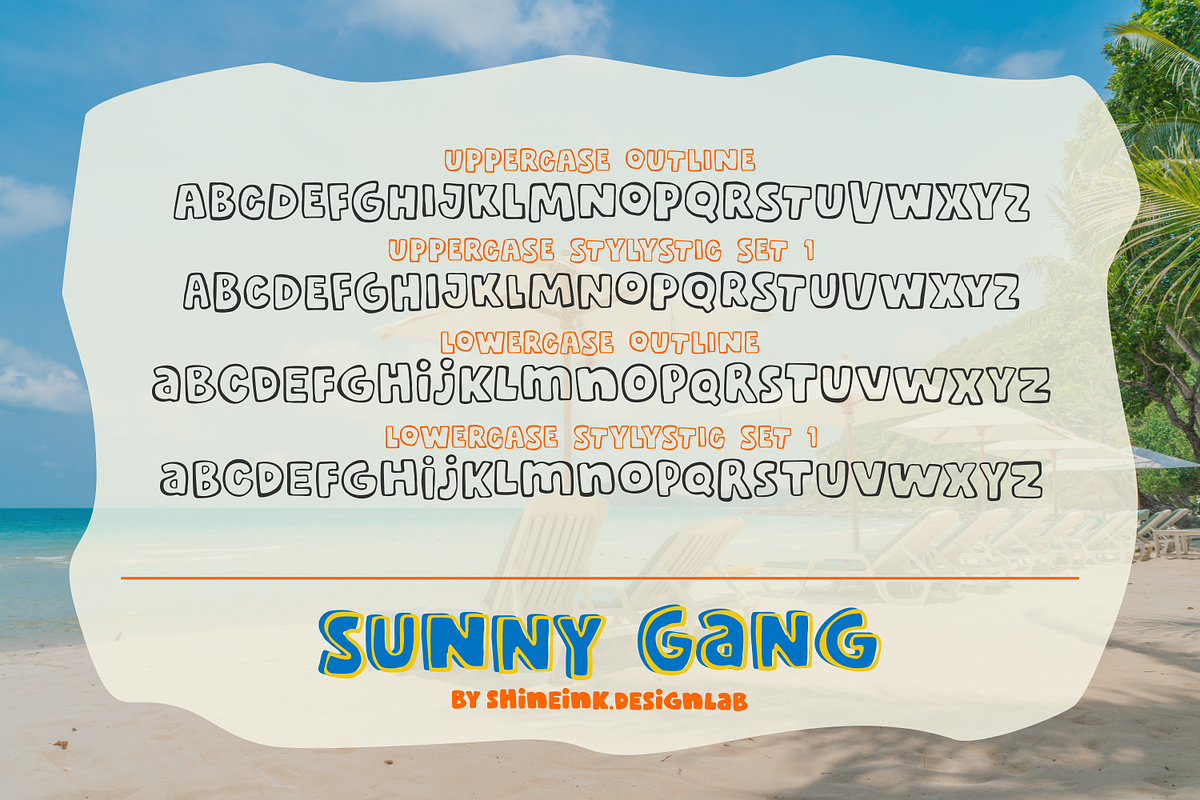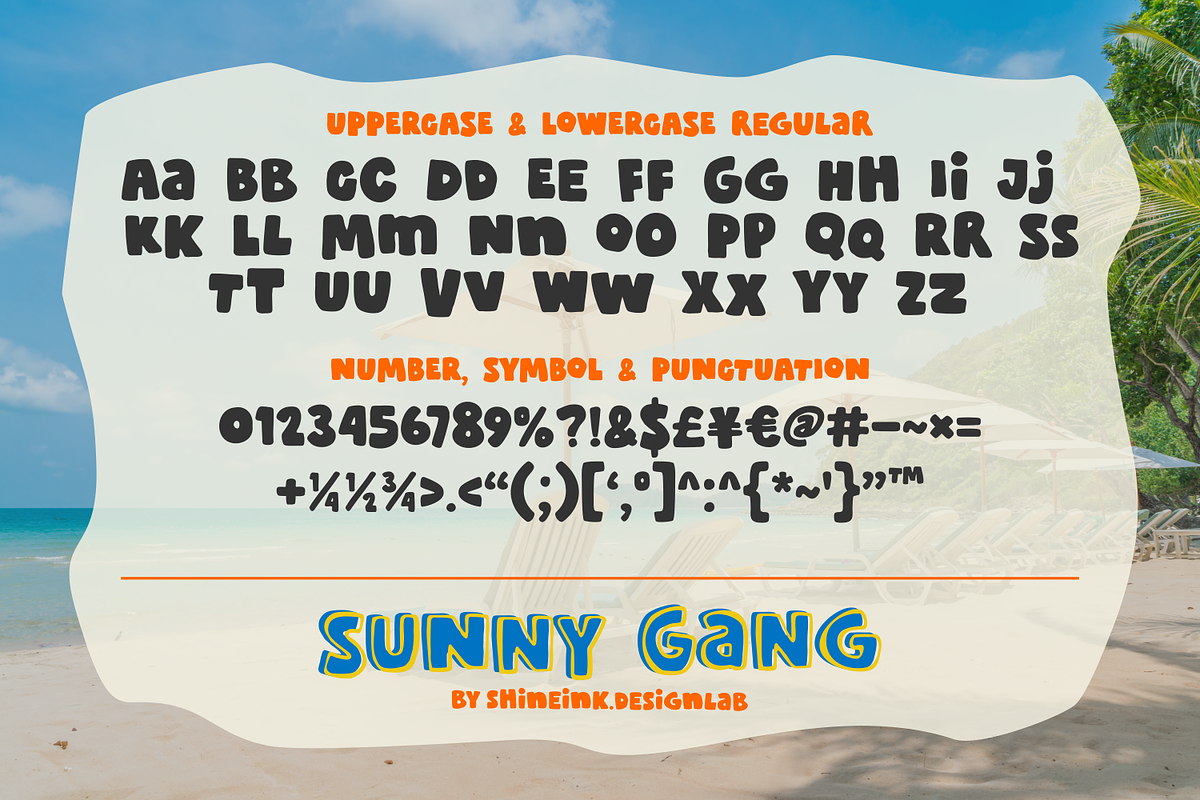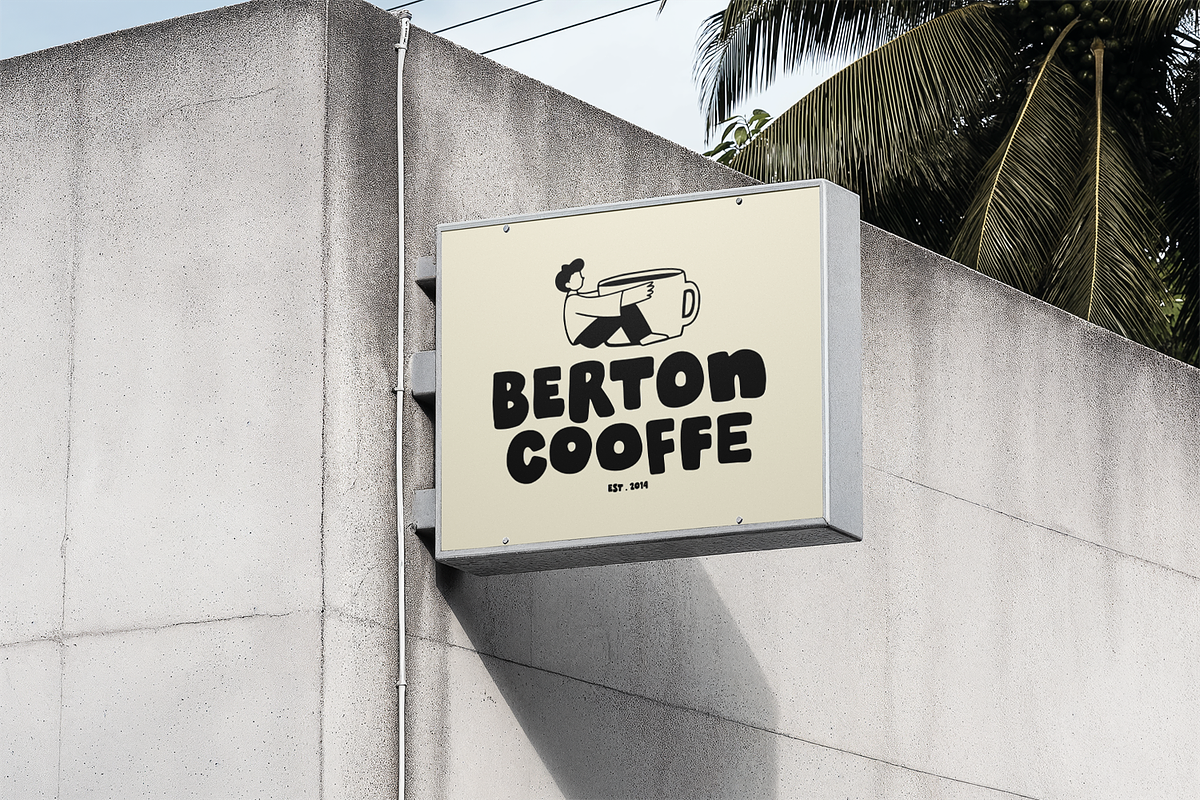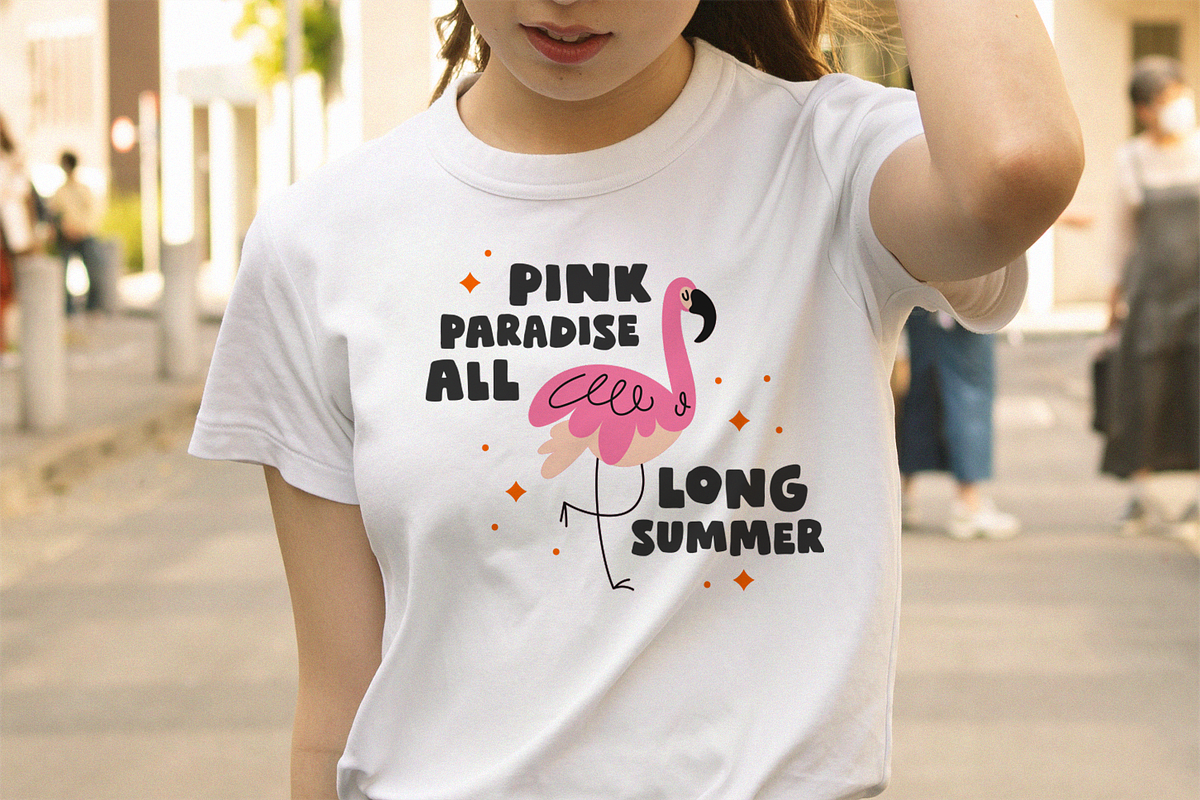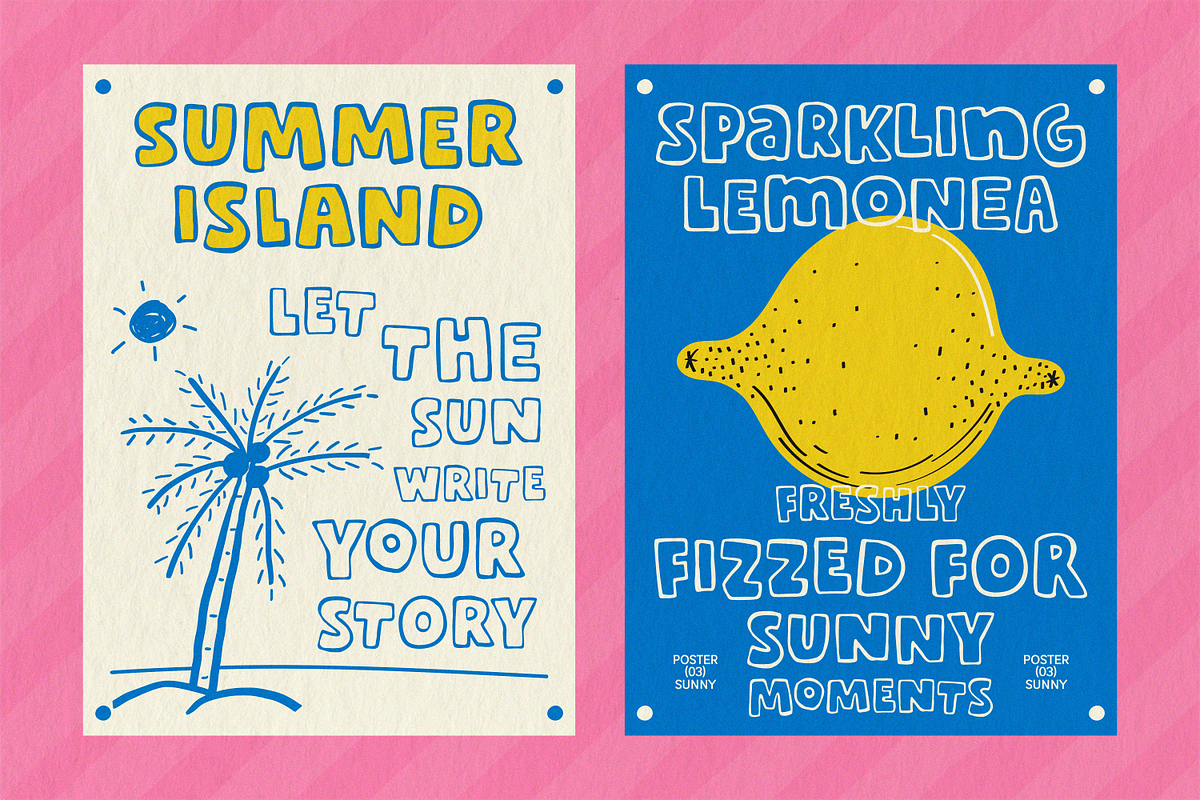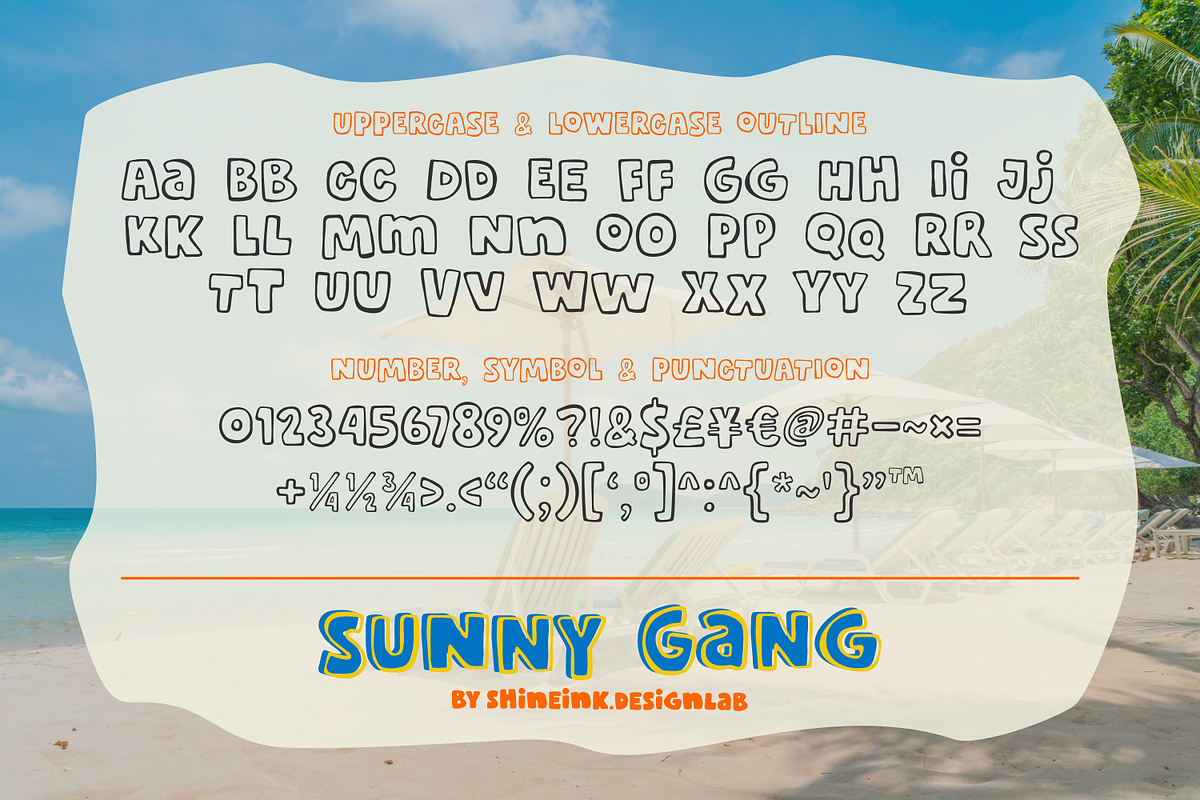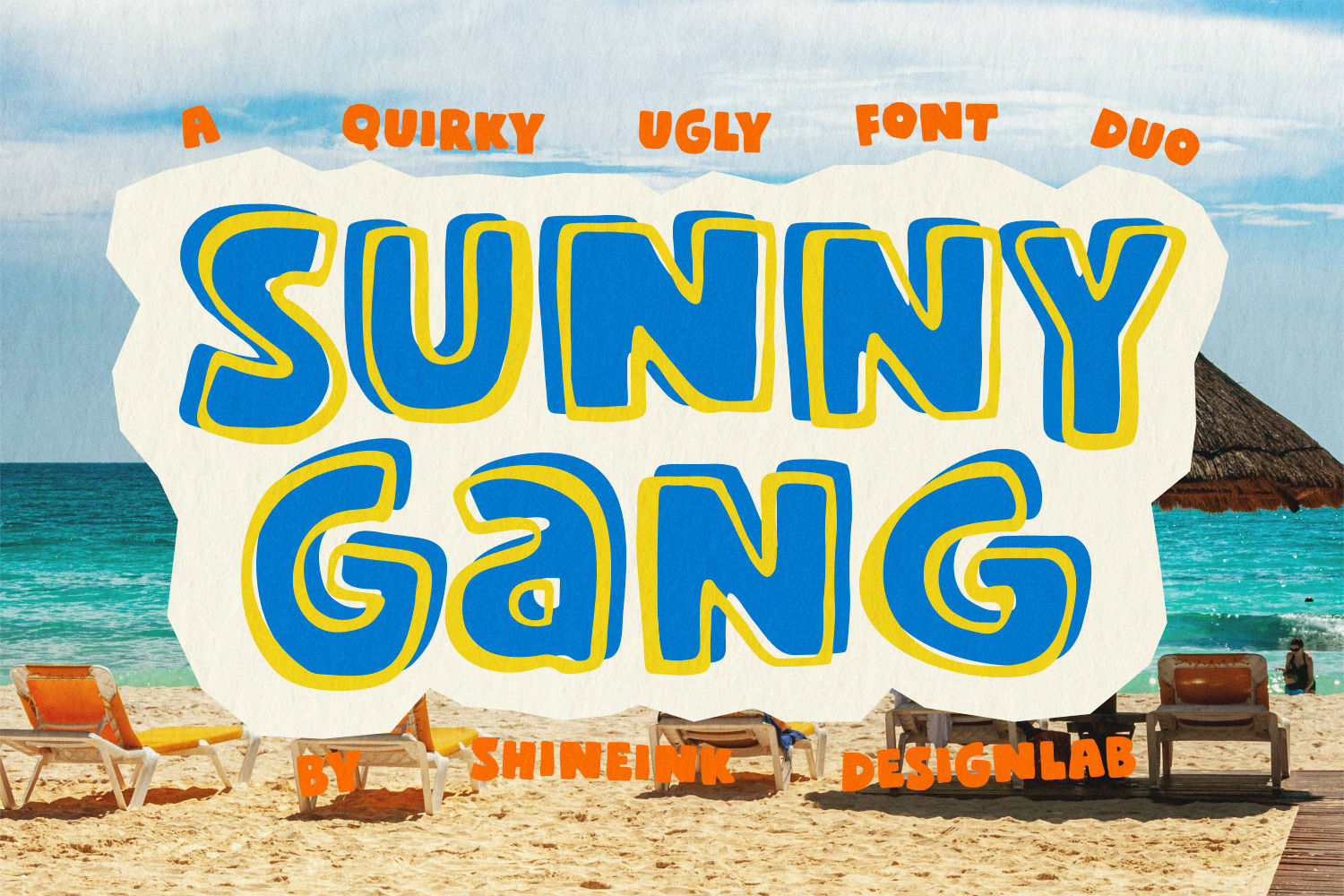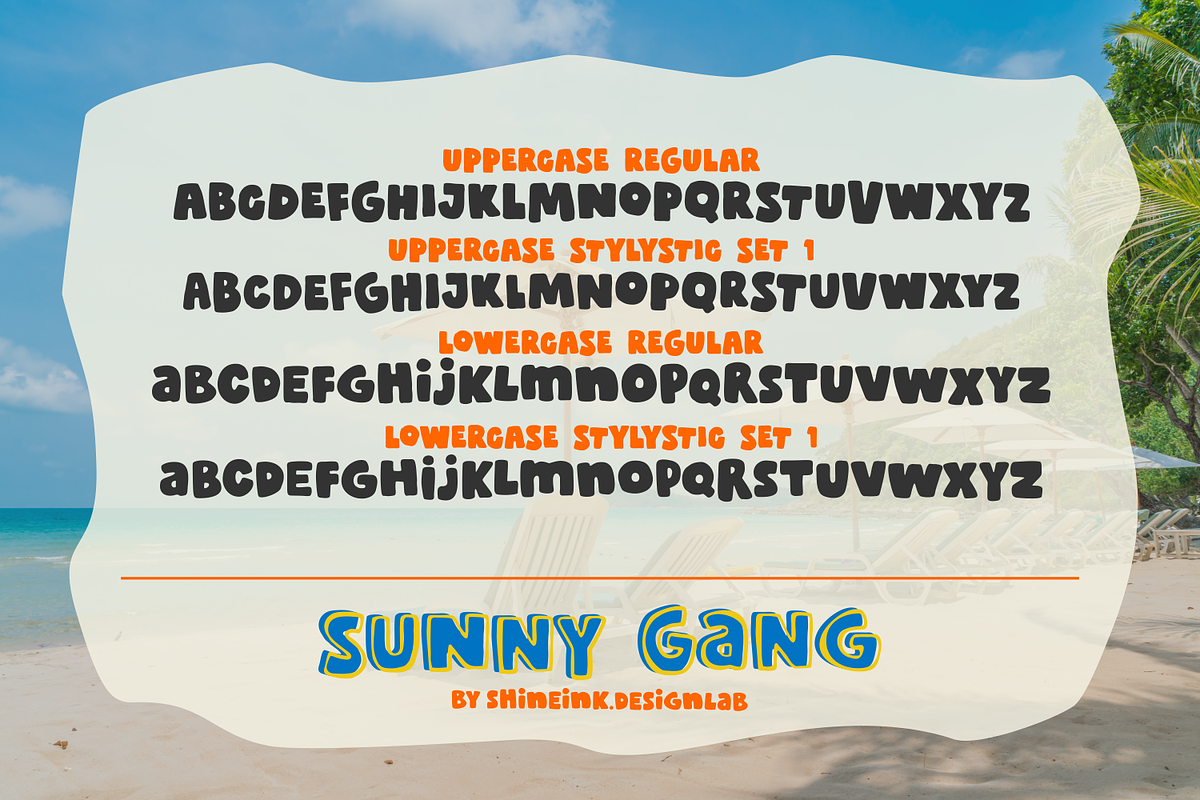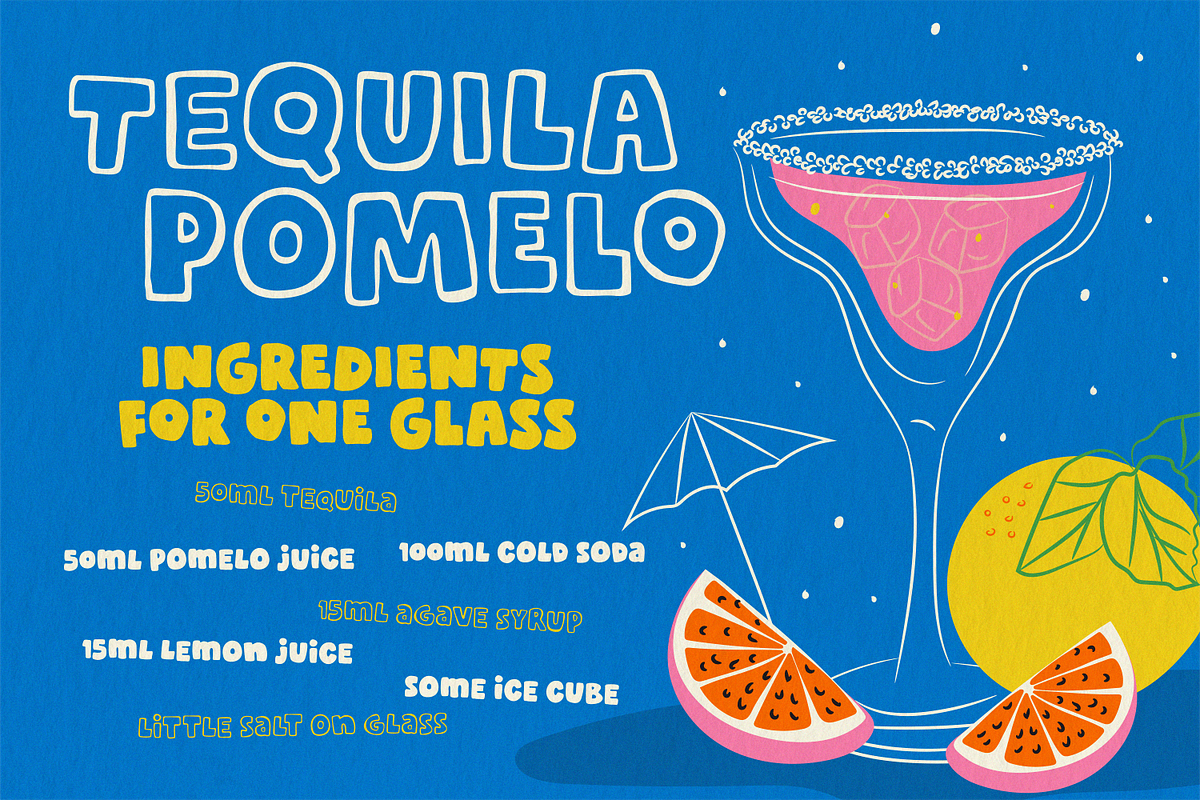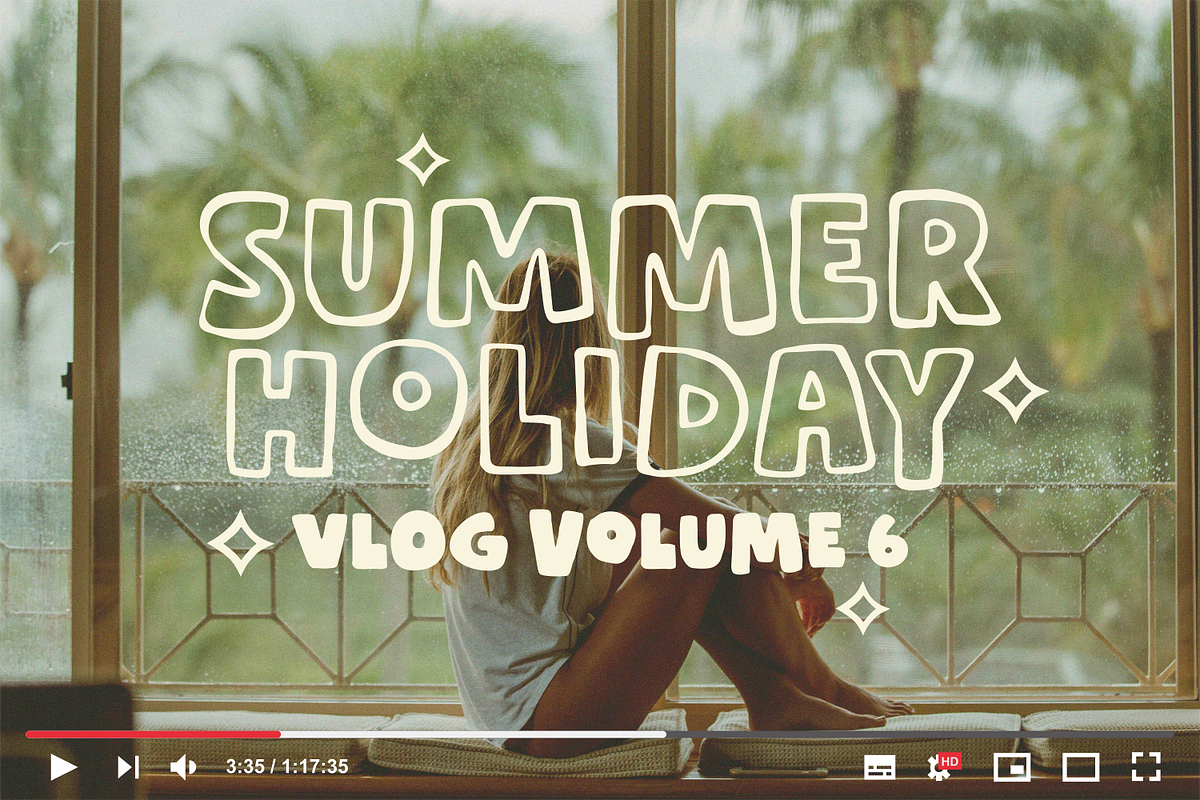
Sunny Gang - Quirky Typeface
I'm present to you, a quirky ugly font duo called Sunny Gang!
Sunny Gang a quirky ugly font duo bursting with playful summer energy and retro beach vibes. This font comes with a bold hand-drawn style, chunky curves, and fun imperfect shapes that instantly make your designs feel cheerful, nostalgic, and full of personality.
Perfect for creators who want a loud, funky, and eye-catching display font for branding, posters, packaging, social media, kids projects, beach themes, summer events, stickers, YouTube thumbnails, and playful merchandise.
The duo style gives you more creative freedom to mix and match looks while keeping your design fun and expressive.
1. Lowercase and Uppercase
2. Numerals & Punctuation
3. Accented characters
4. Multiple Languages Supported
5. 2 Style Font : REGULAR, OUTLINE
7. Alternate Alphabet Uppercase & Lowercase